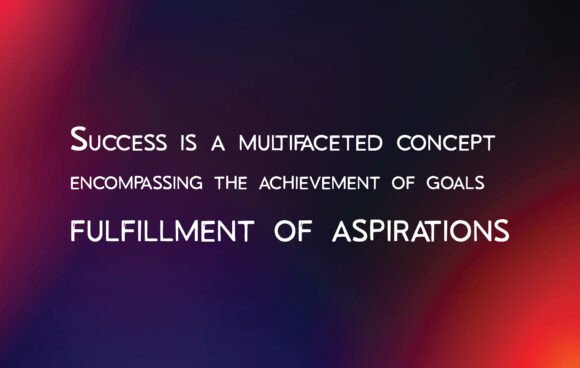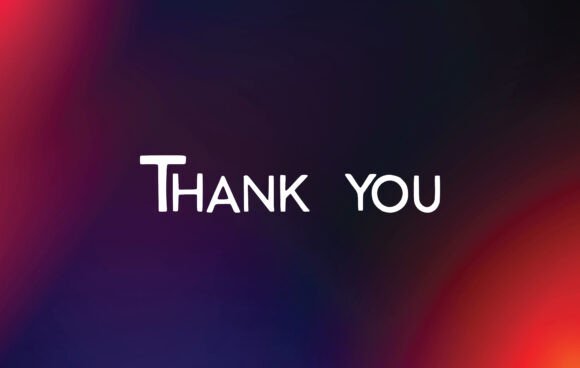
Bongo Font: Elevate Your Creative Projects with Style and Versatility
Are you on the hunt for a font that can seamlessly blend style and versatility, making it a perfect addition to your collection? Look no further than the Bongo Font. Crafted with both aesthetics and functionality in mind, Bongo Font is designed to become your go-to favorite for a wide range of creative projects. Its unique charm and readability make it an excellent choice for both titles and body text, ensuring that your designs stand out with clarity and sophistication.
The Perfect Blend of Style and Versatility
Bongo Font strikes the perfect balance between style and versatility. Its design is not just about looks; it’s also highly functional. This font is meticulously crafted to ensure that it is easy to read, making it suitable for both headings and longer texts. Whether you’re working on a magazine, a website, a t-shirt design, or any other project, Bongo Font brings a touch of elegance and professionalism that can elevate your work to the next level.
Endless Possibilities for Creative Projects
The versatility of Bongo Font means it can be used in a myriad of creative projects. Here are some ideas to get you started:
- Magazine Headlines: Create eye-catching titles that draw readers in. Bongo Font’s unique style ensures that your magazine stands out on the newsstand or in digital form.
- T-Shirts and Apparel: Design stunning apparel that turns heads. The font’s clarity and style make it perfect for quotes, slogans, or any message you want to convey.
- Social Media Posts: Elevate your social media presence with stylish text overlays. Bongo Font can help make your posts more engaging and noticeable.
- Branding Materials: Consistency is key in branding. Use Bongo Font across your branding materials to create a cohesive and professional look.
- Wedding Invitations and Greeting Cards: Add a touch of elegance to your wedding invitations, greeting cards, or any special occasion with Bongo Font. Its sophisticated look is sure to impress.
Why Choose Bongo Font?
There are several reasons why Bongo Font should be your top choice for your typography needs:
- Readability: Despite its stylish appearance, Bongo Font remains highly readable, making it suitable for both headings and body text.
- Versatility: Its design allows it to fit seamlessly into a wide range of projects, from digital content to print materials.
- Elegance: Bongo Font brings a level of sophistication to your designs, making them stand out.
- Easy to Use: Incorporating Bongo Font into your projects is straightforward, making it accessible for designers of all skill levels.
Tips for Using Bongo Font
To get the most out of Bongo Font, consider the following tips:
- Mix and Match: Don’t be afraid to use Bongo Font for both headings and body text to create a cohesive look.
- Experiment with Colors: Play around with different colors to see how they complement or contrast with Bongo Font, adding depth to your designs.
- Pair with Other Fonts: While Bongo Font is stunning on its own, pairing it with complementary fonts can add interest and hierarchy to your designs.
Bongo Font is more than just a typeface; it’s a tool that can transform your creative projects with its blend of style, versatility, and readability. Whether you’re a professional designer or a crafty DIY enthusiast, Bongo Font can help elevate your work, making it more engaging and visually appealing. With its wide range of applications and ease of use, it’s set to become a favorite in your collection. So why wait? Explore the possibilities with Bongo Font today and see how it can take your designs to new heights.